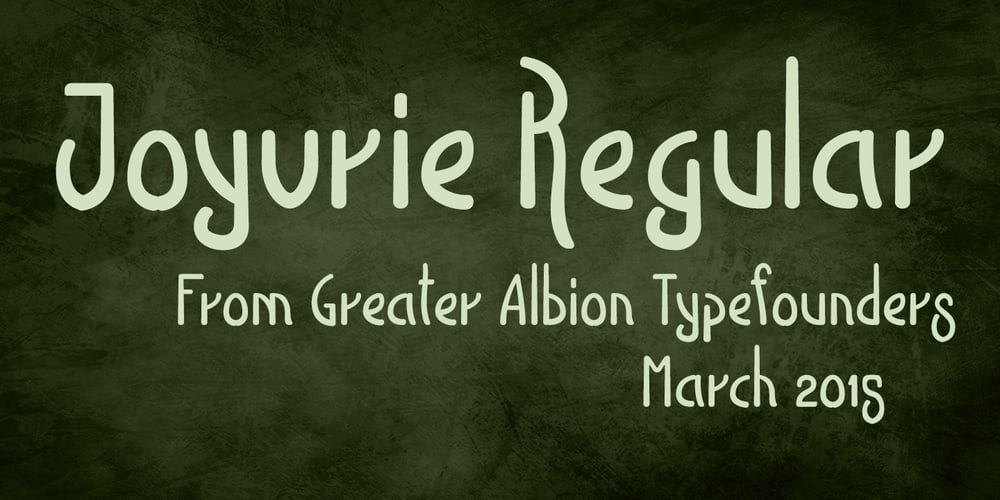
Joyvrie
Joyvrie font
Joyvrie Font Family was designed by Paul James Lloyd and published by Greater Albion Typefounders. Joyvrie contains 2 styles and family package options. Joyvrie is inspired by the rather characterful lettering to be seen on a local grocer’s blackboard. It’s lettering in the style of beautifully clear, yet individualistic, hand printing. We’re pleased to report that this particular rather splendid grocer, does not succumb to the ‘Grocer’s apostrophe’ either…